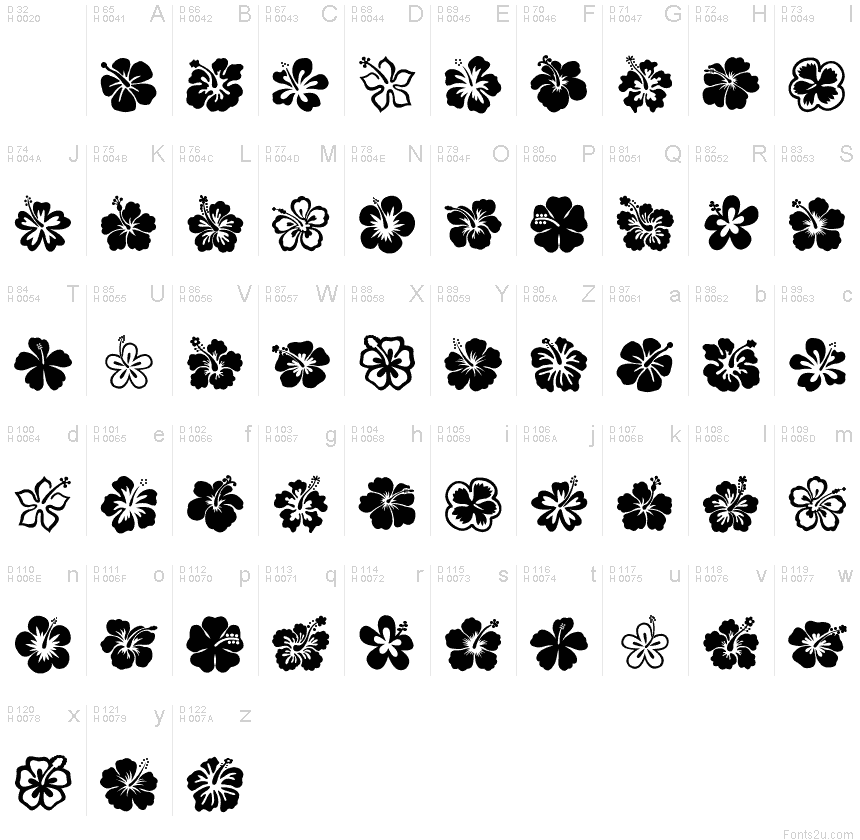
Hibiscus
Hibiscus font by Pokelele is a free floral dingbat typeface that drops a whole lei of bold hibiscus icons right into your layout. Each flower is a solid, inky silhouette with lush, rounded petals and sharp, sunburst centers that read clearly even at small sizes. The mix of slightly different blooms keeps patterns from feeling stiff, so borders, badges, and repeat motifs have an easy, island breeze energy.
Using Hibiscus, you can quickly dress up summer party invitations, tiki bar menus, surf or beach posters, resort branding, packaging, and sunny social media graphics. Because this free font is icon-based, it shines when you scale the blooms up as statement spots or repeat them as a subtle background texture. Pair Hibiscus with a clean sans-serif in all caps to let the flowers carry the tropical flair without overwhelming your typography.